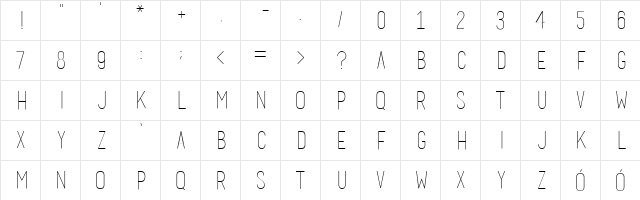
basic title font Regular
| Foundry | przemyslaw hoffer |
| Designer | przemyslaw hoffer |
Design Context for basic title font Typeface
basic title font is a composed and adaptable typeface that performs quietly and consistently across a wide range of design contexts.